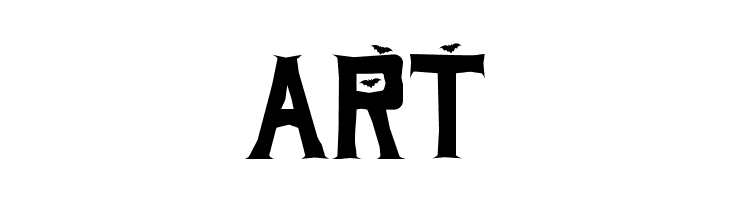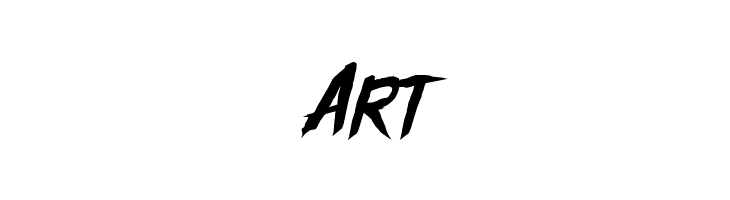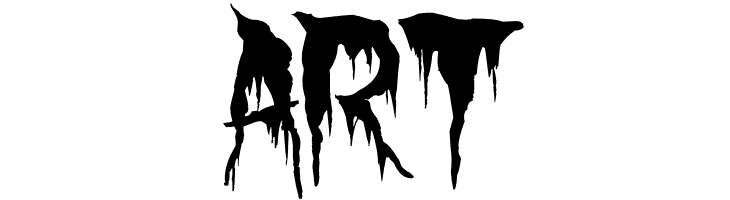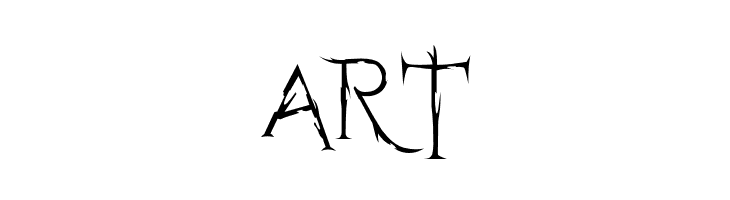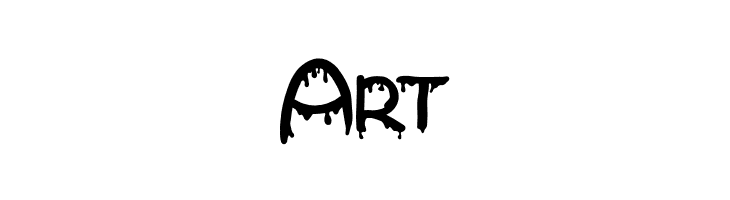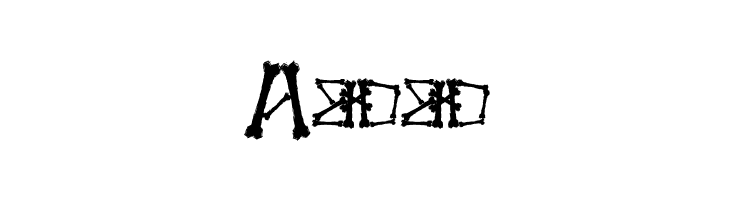
A spooky, ghostly font with jagged, irregular edges and a haunted vibe.
A spooky, dripping font ideal for Halloween themes.
A bold, jagged font with a horror-themed, hand-drawn style.
A horror-themed font with dripping, jagged letters for a spooky effect.
A dramatic, jagged font with a spooky, gothic style.
A gothic, medieval-inspired font with sharp, angular lines and unique letterforms.
A sharp, jagged font with a horror-inspired design, perfect for suspenseful themes.
A bold, dripping font perfect for spooky or Halloween-themed designs.
A bold, skull-themed font with geometric uppercase letters.
A decorative font with a bone-like, skeletal design.